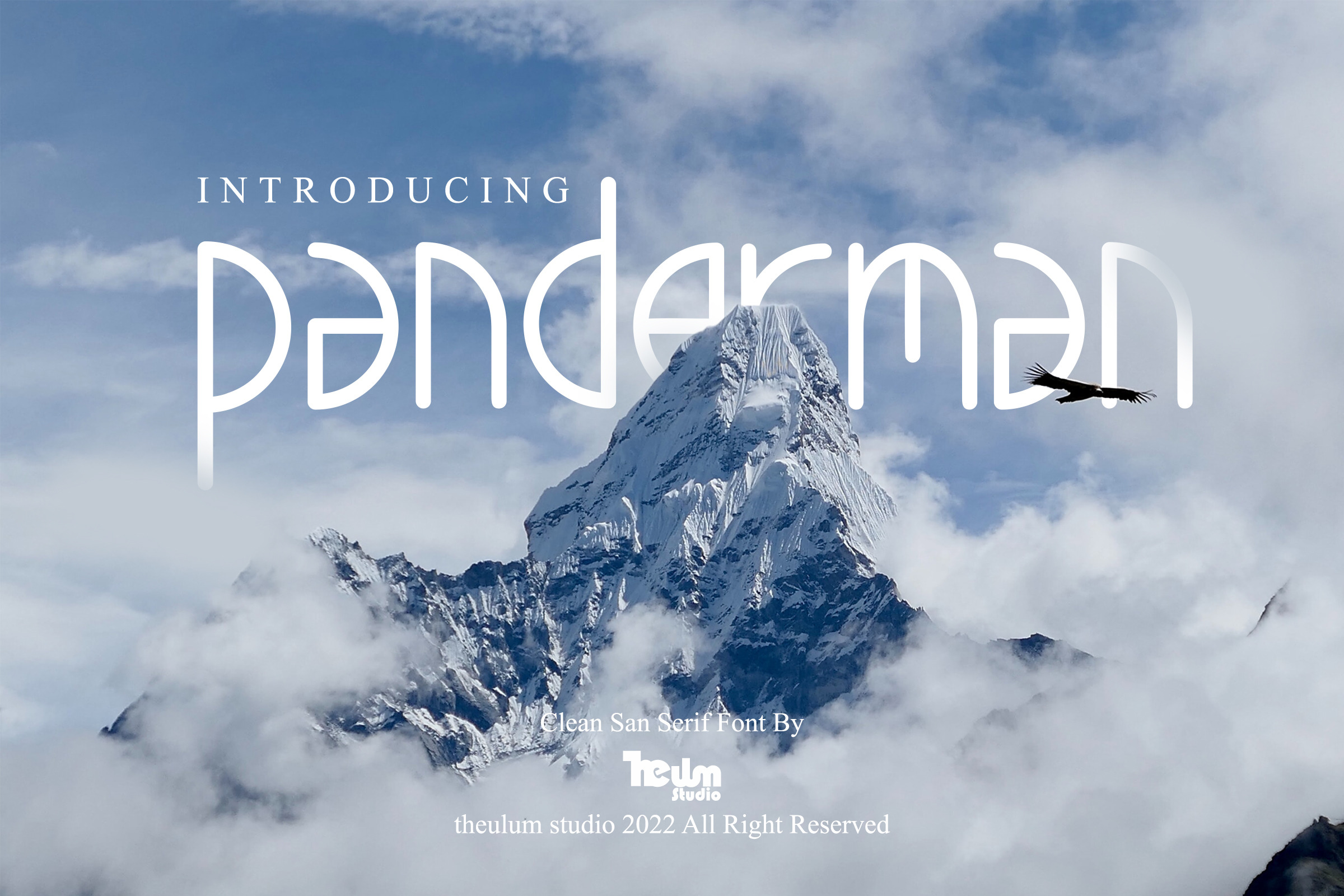
panderman - Simple Modern Font
panderman is a simple modern san serif font with 4 font styles. Simplicity and modernity are the basis for making this font. Perfect for branding, logos, invitations, mastheads, and more.
The panderman also includes the full set:
- Multilingual Symbol
- 4 font styles (Regular, Italic, Bold, & Bold Italic)